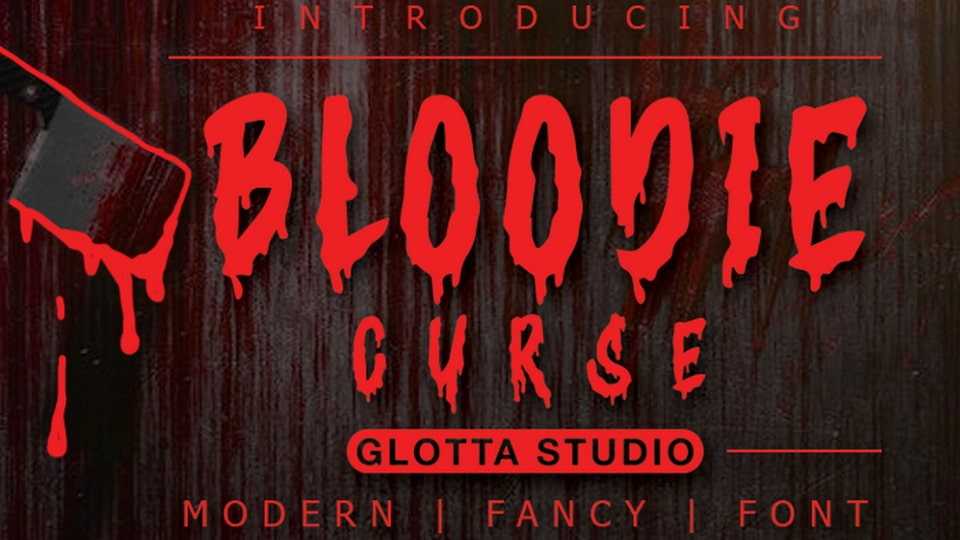
Download Bloodie Curse font, a creepy horror typeface custom-made for Halloween designs that demand to send shivers down the spine and create an atmosphere of macabre horror.